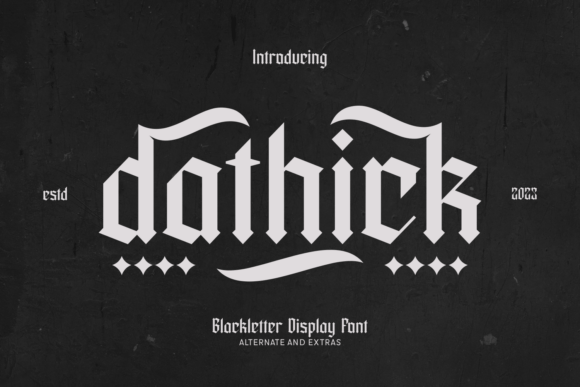
Dathick Font: A Bold and Stylish Blackletter Display Font
Dathick is a bold and stylish blackletter display font that commands attention with its sharp angles, dramatic swashes, and ornamental flourishes. Designed with alternates and extras, it offers creative versatility while maintaining a strong medieval and gothic identity. Perfect for band logos, tattoo art, album covers, or vintage branding, Dathick brings a fierce, dark elegance to any project.
Key Features of Dathick Font
- Sharp Angles and Dramatic Swashes: Dathick’s design is characterized by its sharp, angular lines and sweeping swashes that add a touch of drama and flair to any text.
- Ornamental Flourishes: The font comes with a range of ornamental flourishes that can be used to add a touch of elegance and sophistication to your designs.
- Alternates and Extras: Dathick offers a range of alternate characters and extras, giving you the creative freedom to experiment with different styles and variations.
- Medieval and Gothic Identity: The font’s design is deeply rooted in medieval and gothic typography, making it perfect for projects that require a strong, bold, and dramatic look.
Perfect for Bold and Dramatic Projects
Dathick is a versatile font that can be used in a variety of projects, including:
- Band Logos: The font’s bold and dramatic design makes it perfect for band logos and music-related projects.
- Tattoo Art: Dathick’s sharp angles and ornamental flourishes make it a great choice for tattoo art and body art designs.
- Album Covers: The font’s strong medieval and gothic identity makes it perfect for album covers and music packaging.
- Vintage Branding: Dathick’s bold and dramatic design makes it a great choice for vintage branding and packaging projects.
Design and Usability
Dathick is designed to be highly legible and easy to use, even at large sizes. The font’s bold and dramatic design makes it perfect for headlines and titles, while its range of alternates and extras gives you the creative freedom to experiment with different styles and variations.
The font is also highly versatile, and can be used in a variety of contexts, from digital designs to print materials.
Tips and Tricks for Using Dathick Font
Here are a few tips and tricks for getting the most out of Dathick:
- Experiment with Different Sizes: Dathick is a bold and dramatic font, and can be used at a range of sizes. Experiment with different sizes to find the one that works best for your project.
- Use Alternates and Extras: The font’s range of alternates and extras gives you the creative freedom to experiment with different styles and variations. Don’t be afraid to try out different options to find the one that works best for your project.
- Pair with Other Fonts: Dathick can be paired with a range of other fonts to create a unique and dramatic look. Experiment with different font combinations to find the one that works best for your project.
Dathick is a bold and stylish blackletter display font that commands attention with its sharp angles, dramatic swashes, and ornamental flourishes. With its range of alternates and extras, creative versatility, and strong medieval and gothic identity, Dathick is perfect for band logos, tattoo art, album covers, or vintage branding. Whether you’re looking to create a bold and dramatic headline or a unique and stylish logo, Dathick is a great choice.